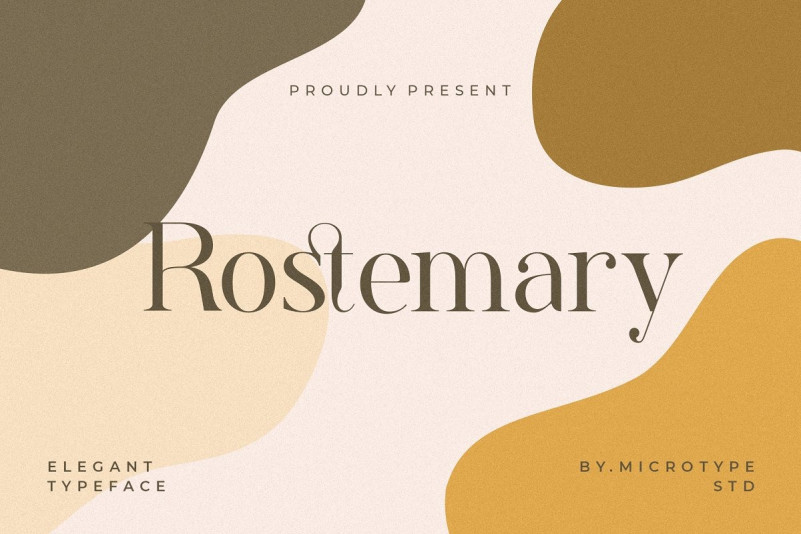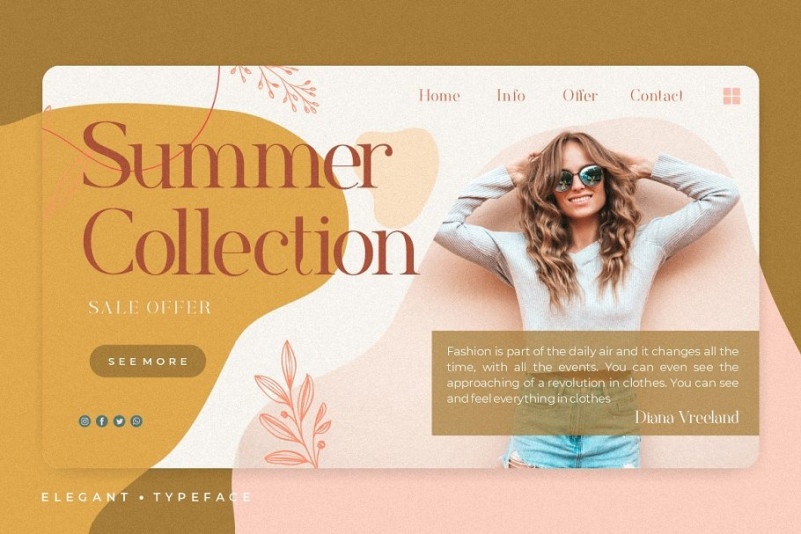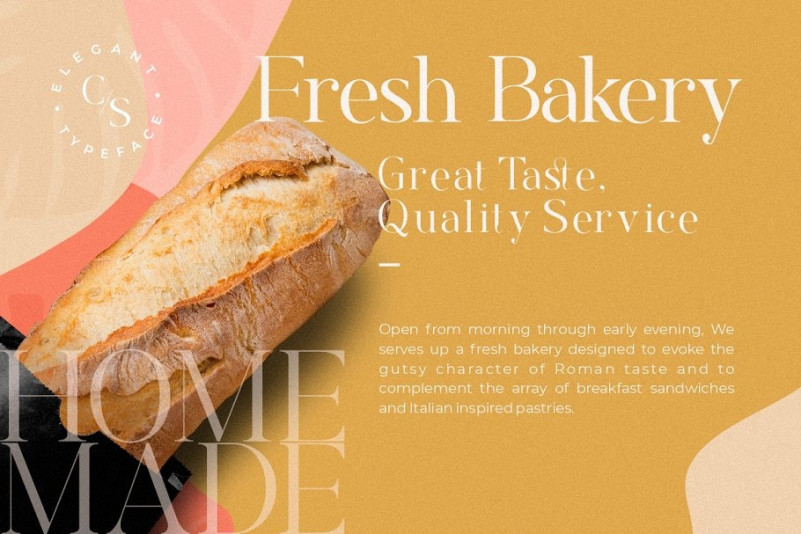
Rostemary Font
Introducing Rostemary Elegant Serif – A new elegant serif font with modern and beautiful ligatures, tons of multilingual support. The font is perfect for for movie title, logo, blogging, brand identity, book title, social media, branding, wedding invites, cards or simply use it in your next design project and suitable to use for many occasion.